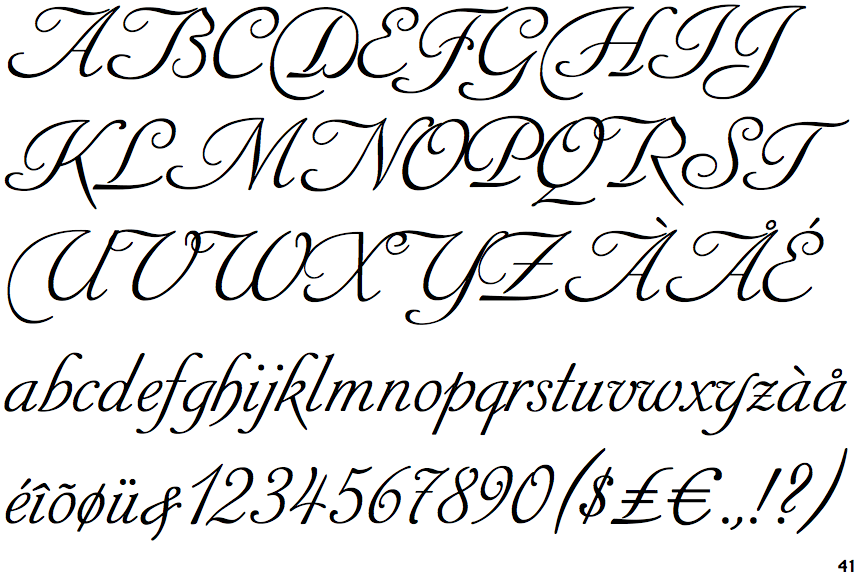
Siren Script I
A revival of Stationer's Semiscript, originally published by Barnhart Brothers & Spindler in 1899.
One of the Widest script fonts for tight vertical spaces.
Designers: Rebecca Alaccari and Patrick Griffin Year: 2009-2010 Publisher: Canada Type |